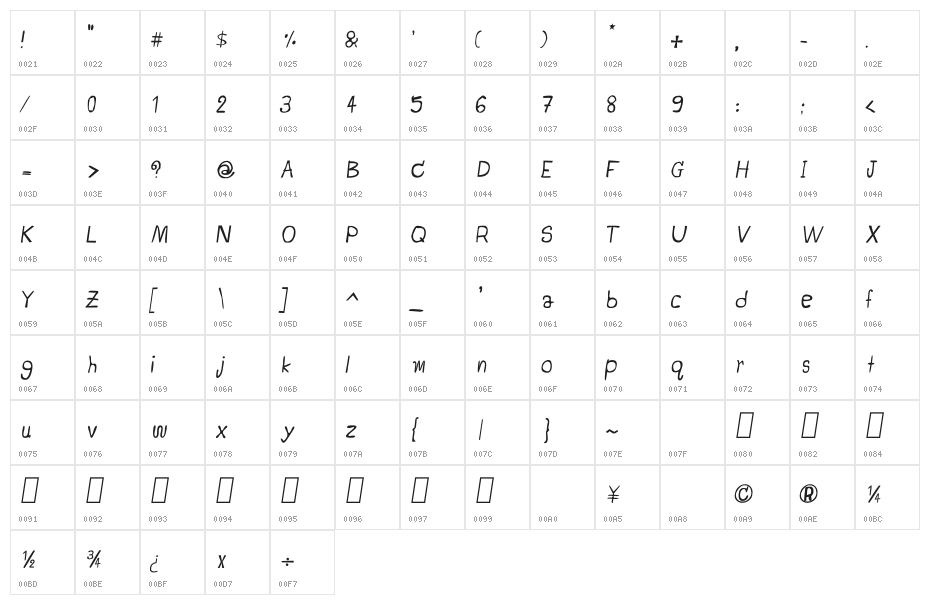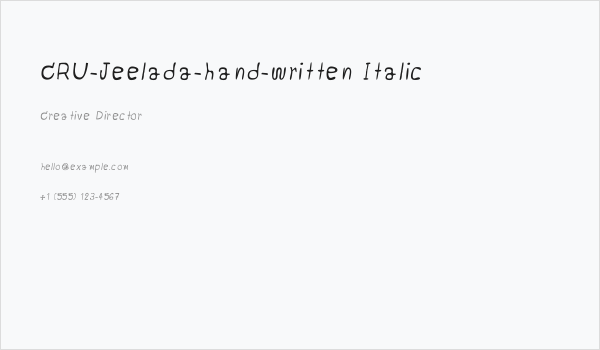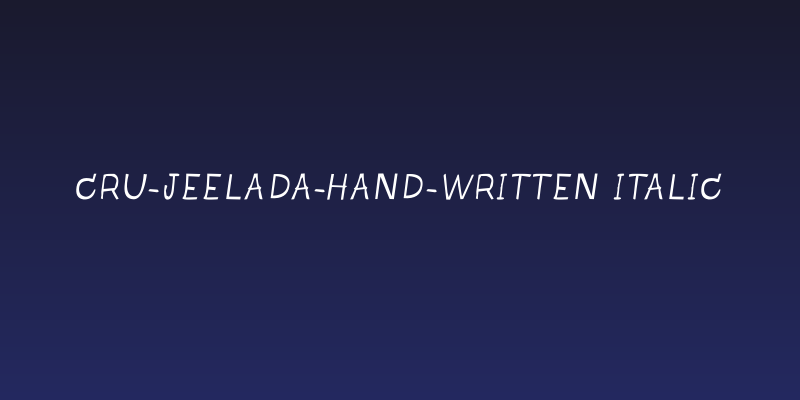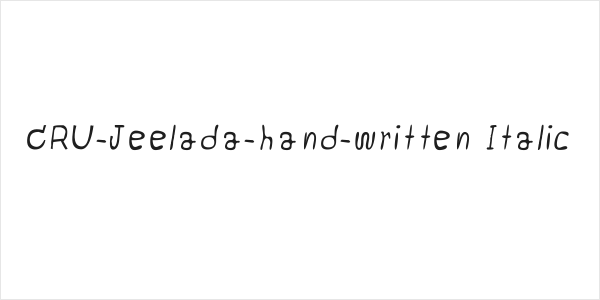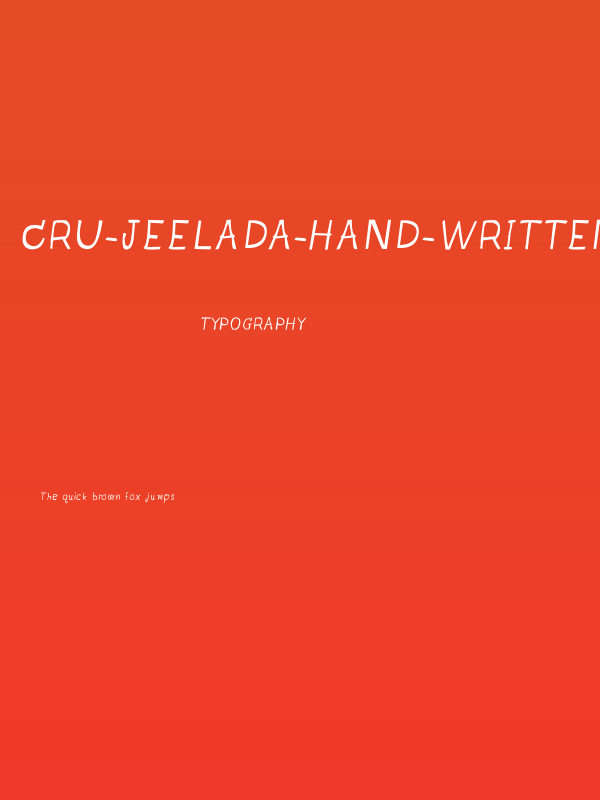
CRU-Jeelada-hand-written Italic Font
CRU-Jeelada-hand-written Italic Description
This font features a playful, handwritten style with a slight italic slant, giving it a casual and approachable feel. The characters are unevenly shaped, adding to the hand-drawn aesthetic. Uppercase and lowercase letters maintain a consistent style, with rounded edges and varying stroke widths that enhance its informal appearance. The numerals and special characters follow the same design, ensuring uniformity across all glyphs. This font's unique charm makes it suitable for projects that require a personal touch.
CRU-Jeelada